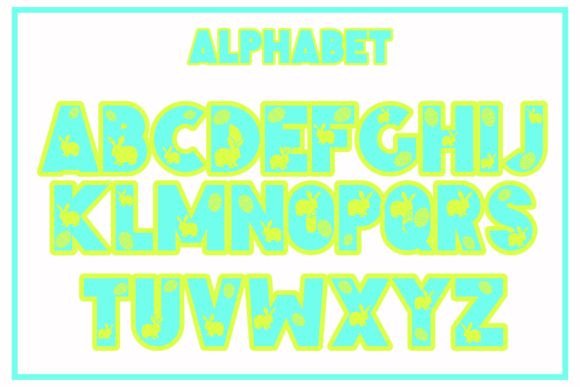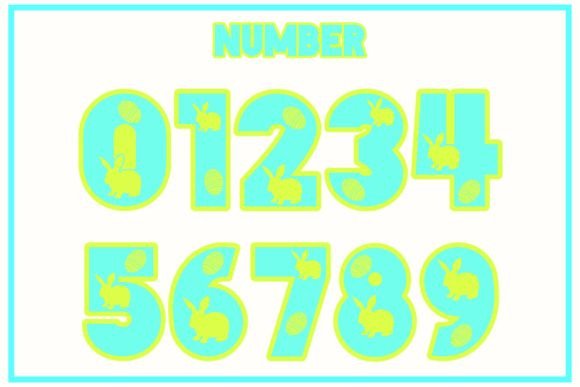
The Easter Font: A Fun and Playful Decorative Font for Your Creative Projects
I’ll never forget the time I was working on an Easter-themed project for a client, and I just couldn’t find the right font to bring it all together. The client wanted something fun, playful, and uniquely crafted, but every font I tried seemed either too boring or too over-the-top. That’s when I stumbled upon the Easter Font, and let me tell you, it was love at first sight! ✨
With its cool and uniquely crafted design, the Easter Font is perfect for adding a touch of whimsy to any project. Its fun and playful characters make it ideal for stickers, mugs, t-shirts, ornaments, Easter Day cards, event invitations, and many more! In this article, I’ll share my honest review of the Easter Font, a practical guide on how to use it, and some similar font alternatives you might enjoy.
- ✨ Unique and playful design that’s perfect for Easter-themed projects
- ✅ Highly legible and versatile, making it suitable for a wide range of applications
- 🎉 Fun and festive characters that add a touch of personality to any design
- 💻 Great for both digital and print projects, from social media graphics to stickers and invitations
While the Easter Font is an amazing addition to any design project, there are a few things to keep in mind: 🤔
- ⚠️ Some characters may not work well in very small sizes, so be sure to test it out before finalizing your design
- ⚠️ Limited language support, so if you need to include non-English text, you may want to pair it with a more comprehensive font
The Story Behind the Easter Font
The Easter Font was designed by a talented font designer who wanted to create a unique and playful font for Easter-themed projects. Inspired by traditional Easter decorations and springtime festivities, the designer crafted a font that’s both fun and functional. 🎉
| Font Name | Easter Font |
| Author | CHEETAH DOODLE |
Q: What type of projects is the Easter Font best suited for?
A: The Easter Font is perfect for Easter-themed projects, such as stickers, mugs, t-shirts, ornaments, Easter Day cards, event invitations, and many more!
Q: Is the Easter Font available in different languages?
A: The Easter Font has limited language support. If you need to include non-English text, you may want to pair it with a more comprehensive font.